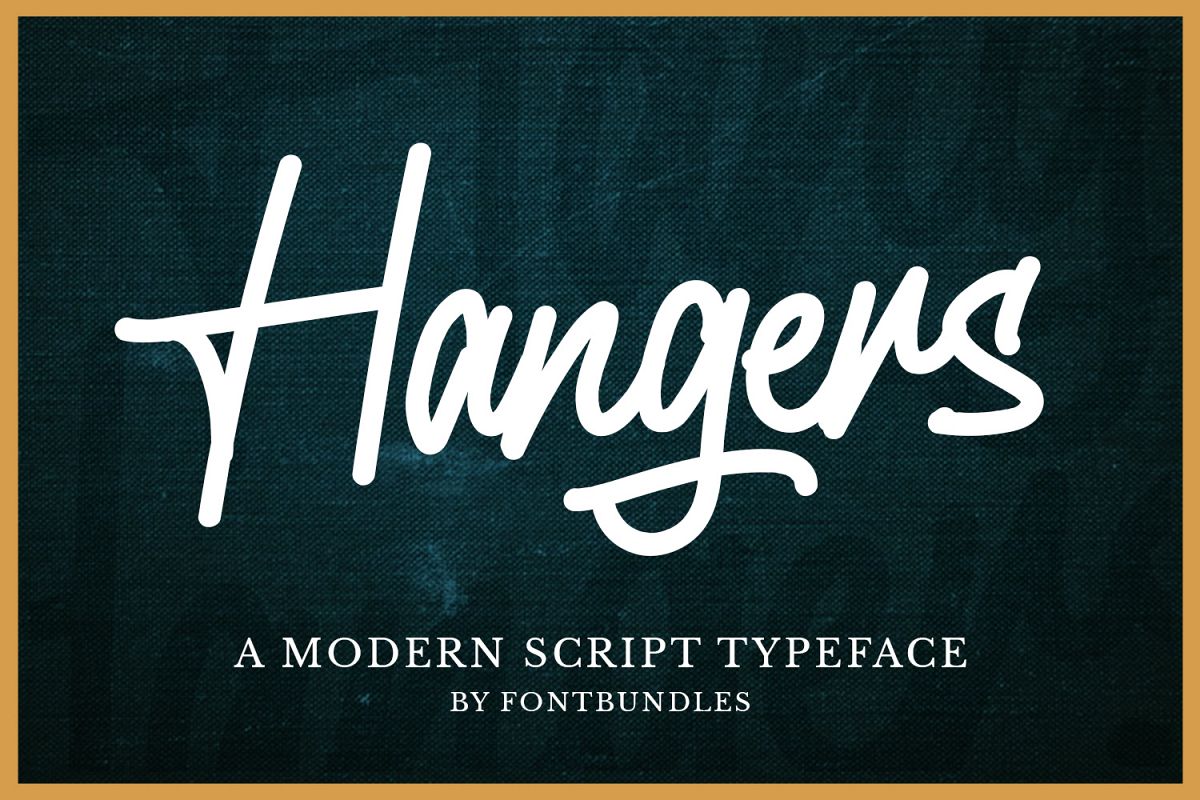
Hangers
Hangers is a Modern Script Ty[peface. Perfect for, poster, quotes, merchandise, branding, headline, tittle, business card, name card, t-shirt design, and many more.